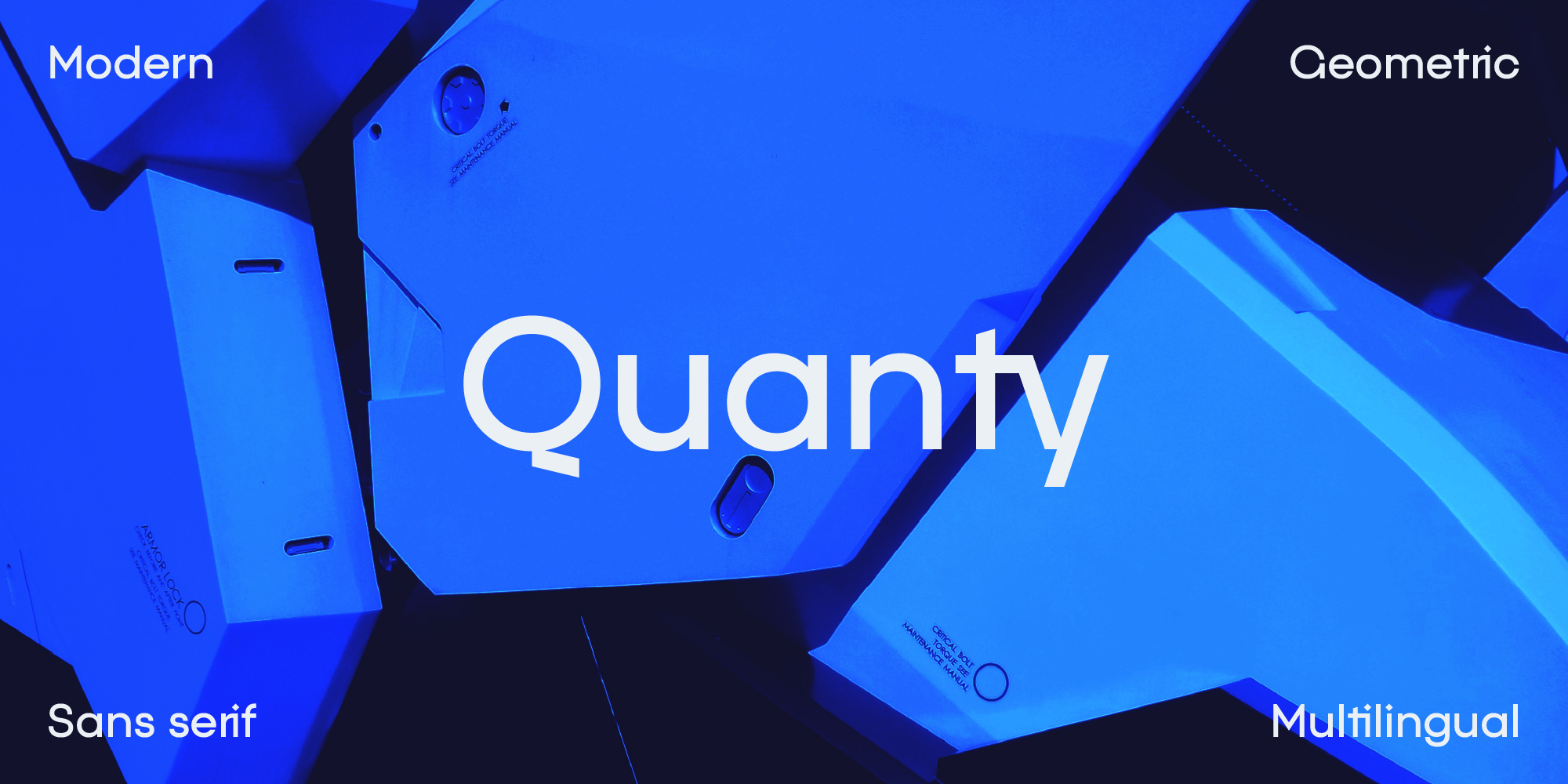
This precise sans-serif font is perfect for financial services branding, data analytics dashboards, cryptocurrency platforms, scientific calculators, trading applications, quantitative research publications, fintech startups, and technical design projects that require mathematical precision and analytical credibility.
Quanty Font is exciting because it embodies computational accuracy with its systematically engineered letterforms that convey reliability and quantitative expertise through every precisely calculated character. The font delivers data-driven authority while maintaining exceptional clarity for complex numerical presentations.
The Quanty Font family includes light, regular, medium, and bold weights with matching italics, plus mathematical symbols and numerical variants, providing designers with comprehensive tools for creating authoritative quantitative typography.
Ready to quantify your brand's precision? Quanty Font Free Download offers designers systematic letterforms that embody analytical rigor and mathematical authority. This calculated typeface combines quantitative aesthetics with professional functionality, making it ideal for financial institutions, data companies, and research organizations. Whether you're designing trading platforms, analytical reports, or fintech applications, this font delivers credible results. The methodically engineered characters feature algorithmic proportions while maintaining optimal legibility for complex data visualization. Perfect for businesses in finance, analytics, cryptocurrency, and research that value precision and quantitative excellence. The font's systematic construction creates memorable brand recognition that resonates with data-driven professionals worldwide. Each letter showcases deliberate calculation that mirrors the exacting standards of quantitative analysis. Download today and compute success in your creative projects with this premium sans-serif font that transforms ordinary text into extraordinary expressions of analytical excellence and the computational power of Quanty Font Free Download precision.